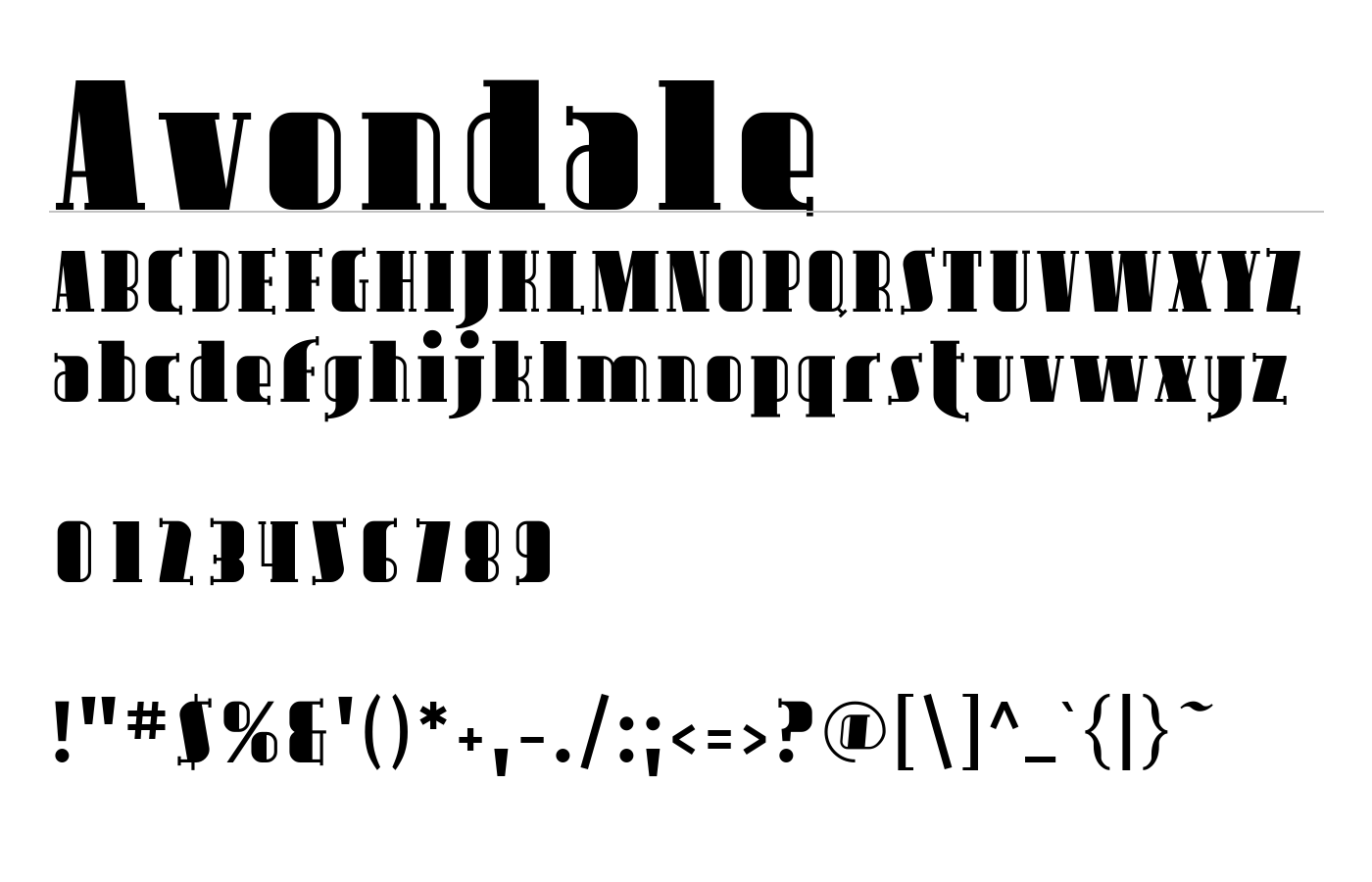
Avondale is a bold, condensed serif font with a striking vintage and industrial feel. Its high contrast between thick and thin strokes, combined with sharp, unbracketed serifs and unique letterforms, makes it perfect for eye-catching headlines and display use. This font works well for branding, posters, and editorial designs where a strong, confident, and stylish statement is needed.
Avondale Font
About Avondale Font
| Font family | Avondale Font |
| Designer | Derek Vogelpohl |